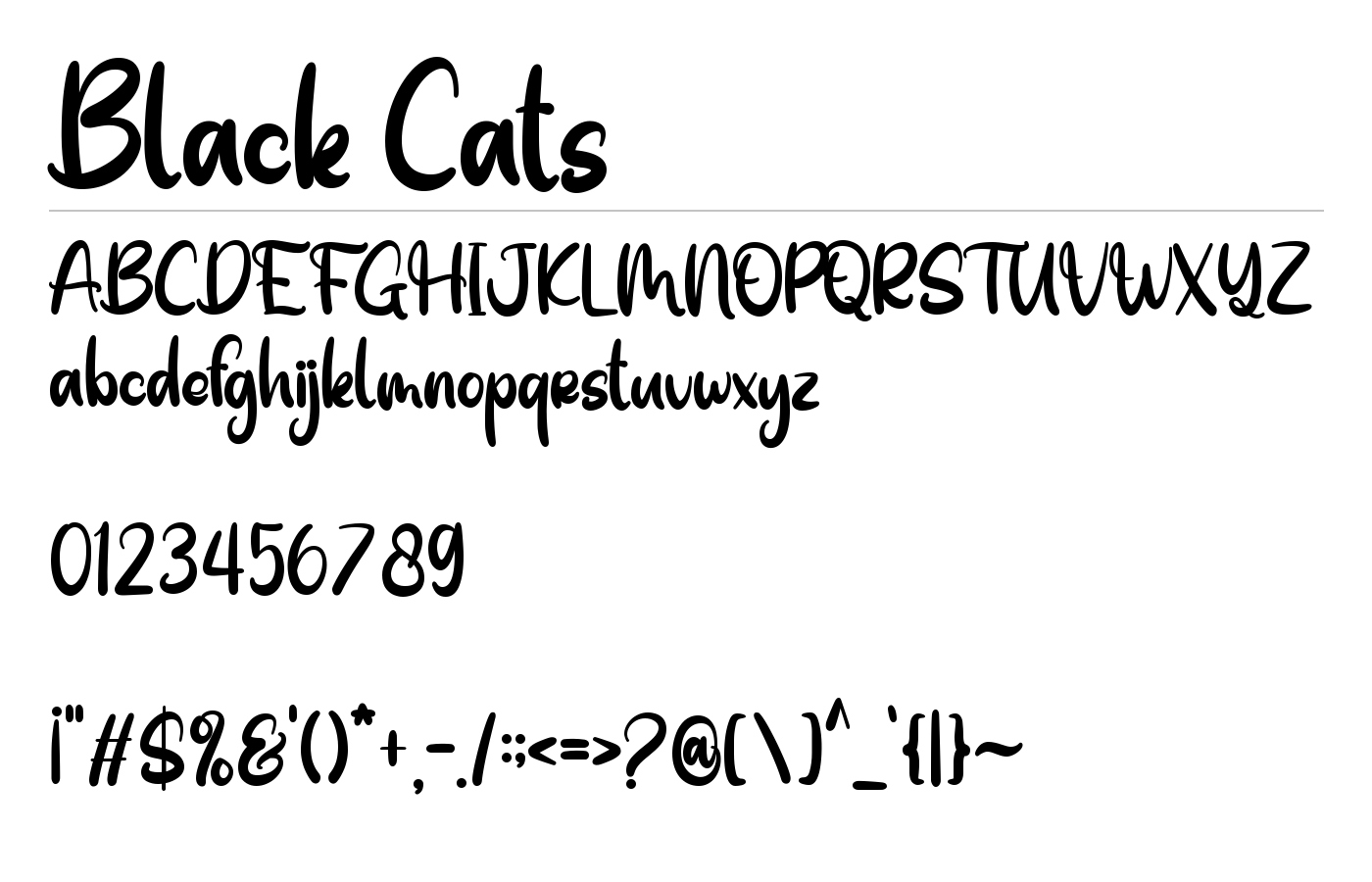
Black Cats is a playful and casual handwritten font with a smooth, rounded stroke that gives it a friendly and approachable feel. Its medium weight and lively letterforms, including unique uppercase shapes and single-story lowercase ‘a’ and ‘g,’ make it ideal for creative, fun projects like children’s books, informal branding, or greeting cards. This font’s informal charm works best in headlines and display uses where warmth and personality are key.
Black Cats Font
About Black Cats Font
| Font family | Black Cats Font |
| Designer | Risma Ramawi |